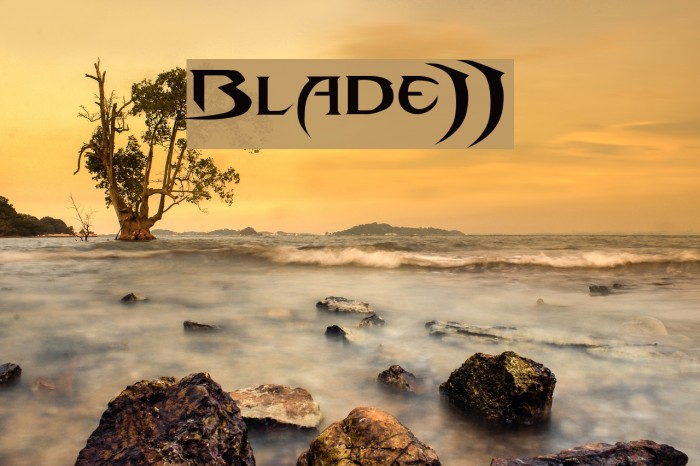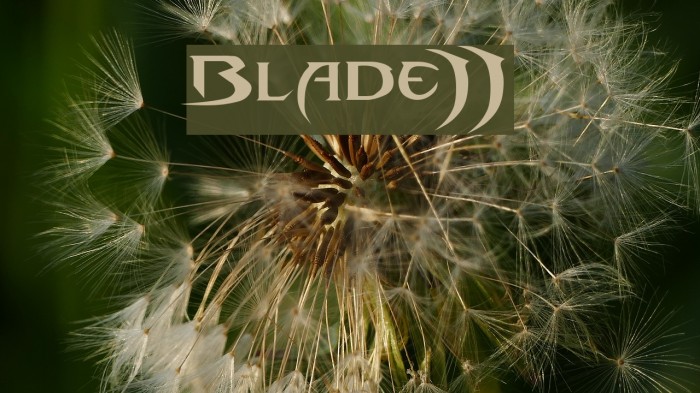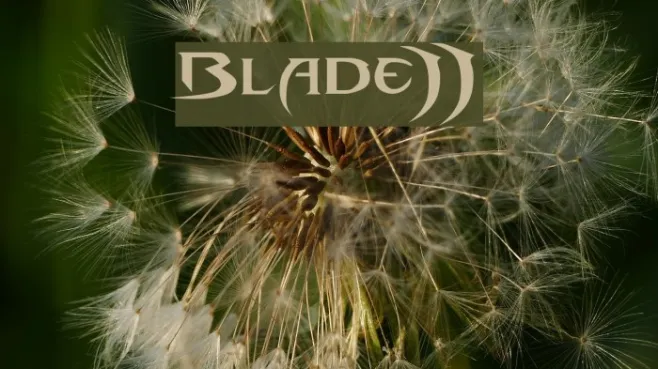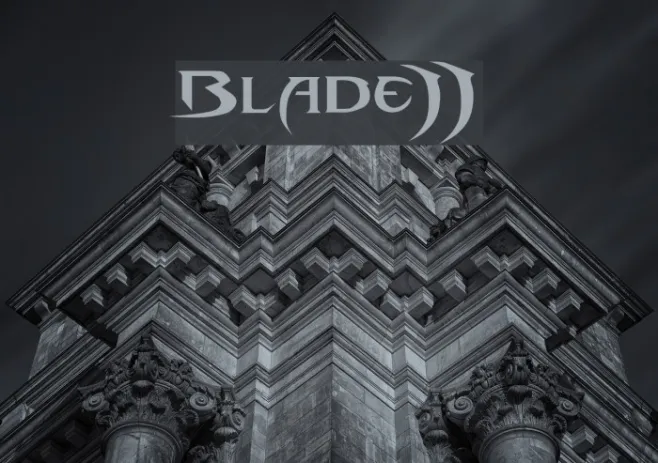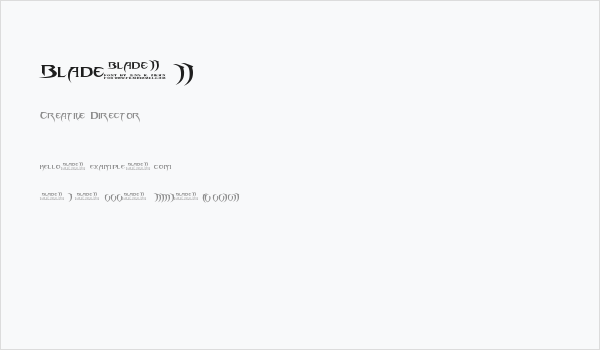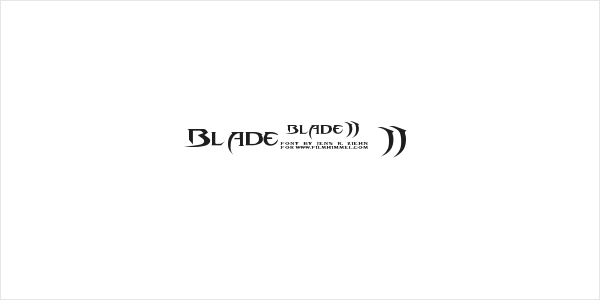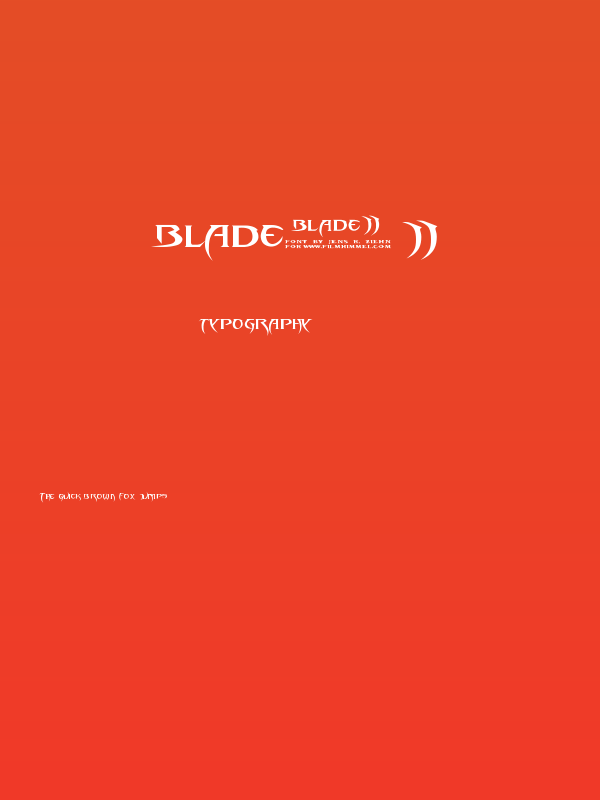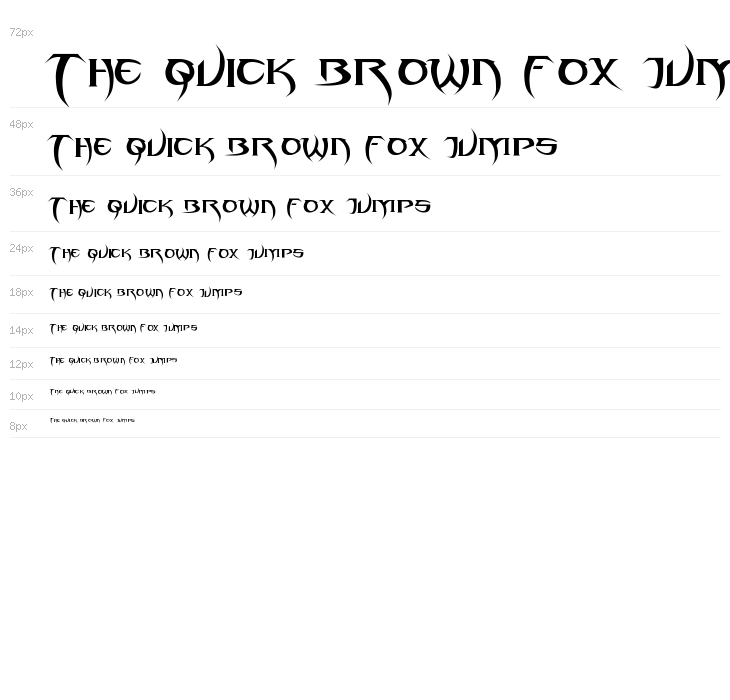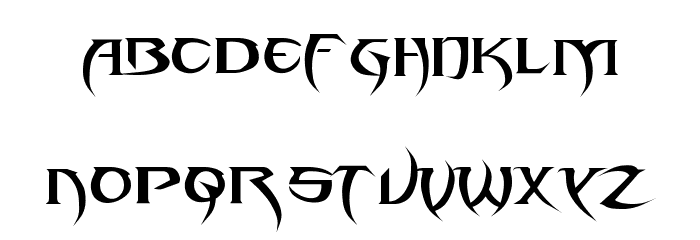
Blade-2 Font
Blade-2 Description
This font features a bold and aggressive design with sharp, angular edges and a distinct gothic influence. The characters are highly stylized, with exaggerated serifs and spikes that give it a fierce and edgy appearance. The uppercase and lowercase letters maintain a consistent style, emphasizing a sense of uniformity and cohesion. The numerals and special characters follow the same design principles, ensuring a comprehensive and cohesive look across all glyphs. This font is ideal for projects that require a dramatic and impactful visual presence.
| Overall Style | Gothic, Edgy, Dramatic |
| Proposed Projects | Perfect for movie posters, video game titles, band logos, and any design needing a dramatic impact. |